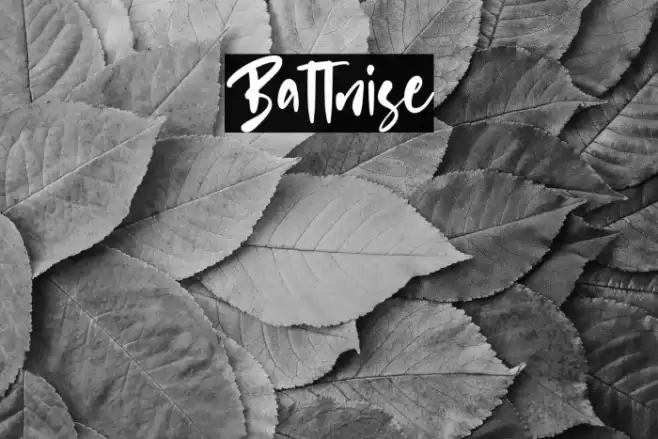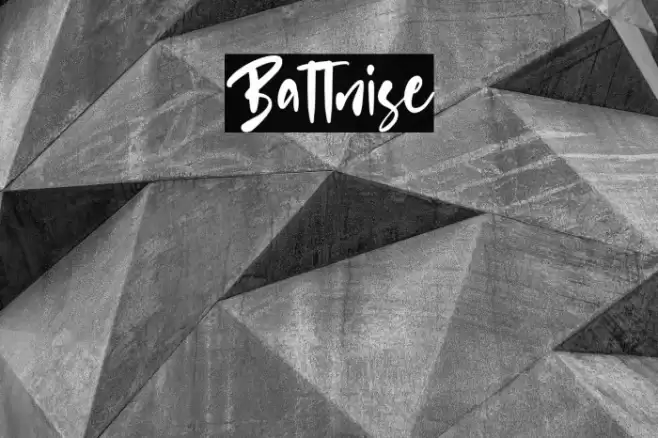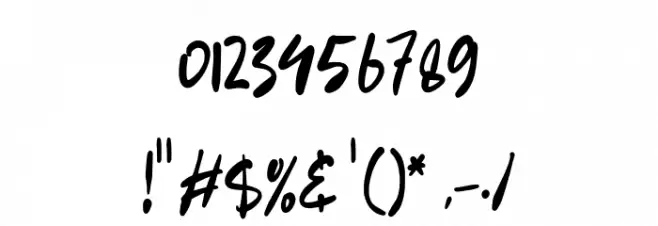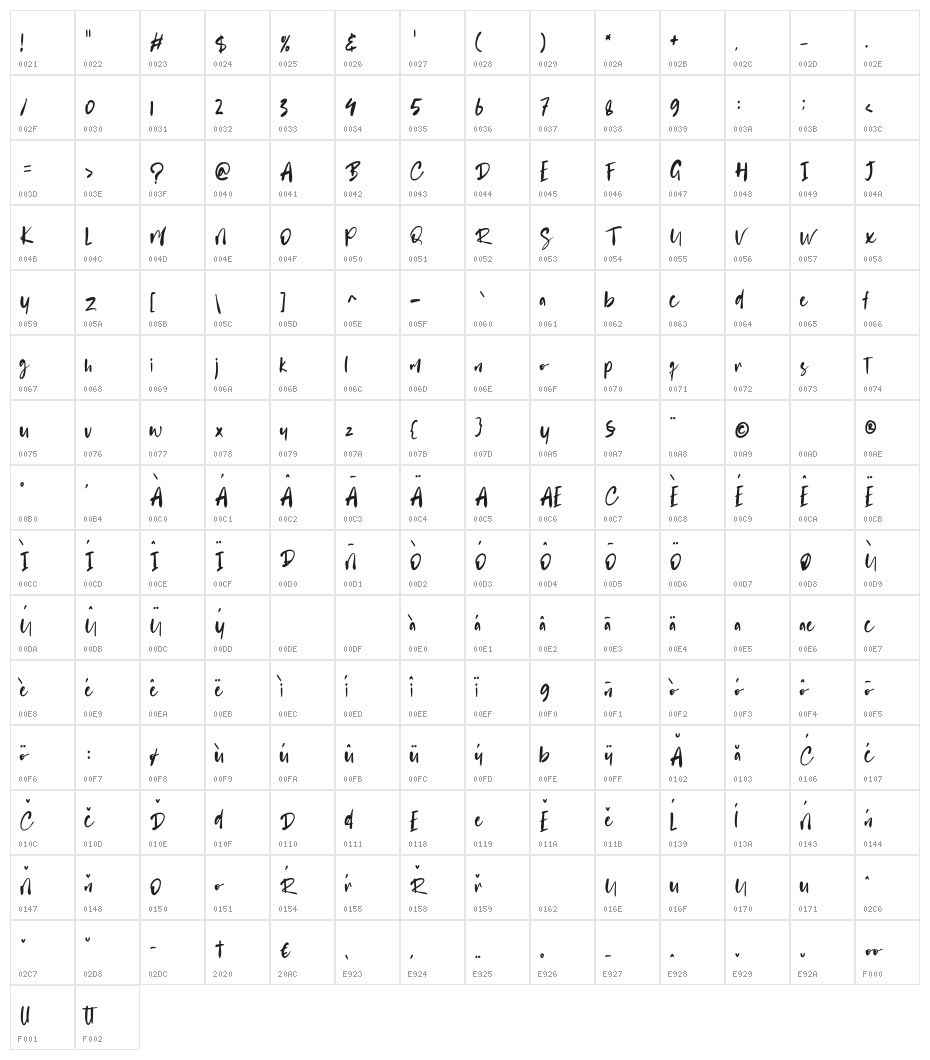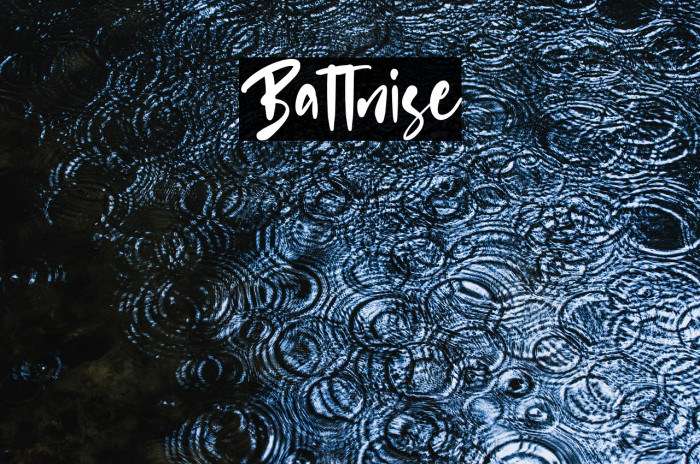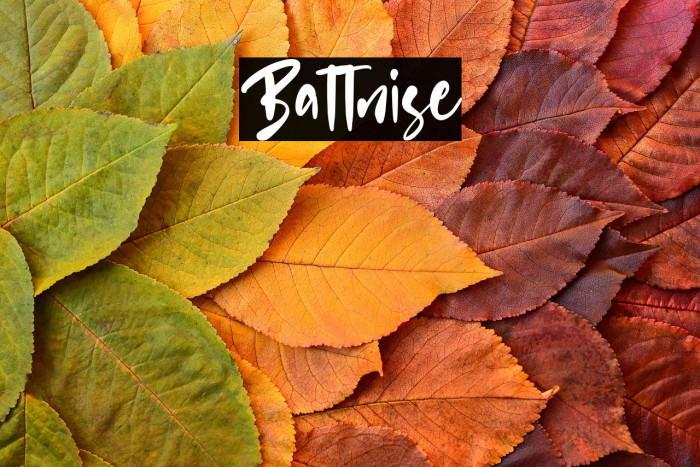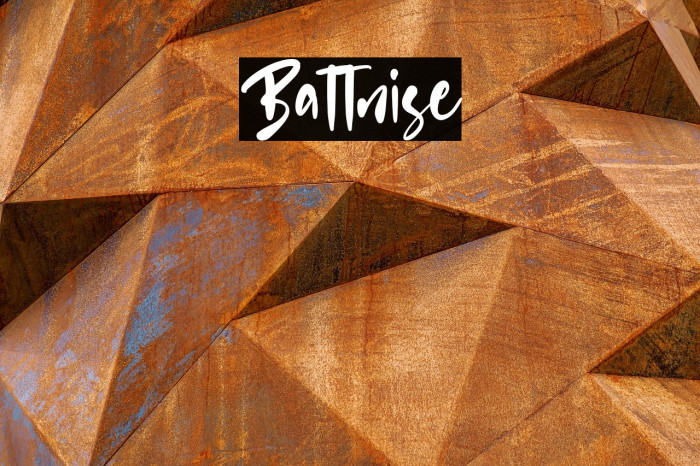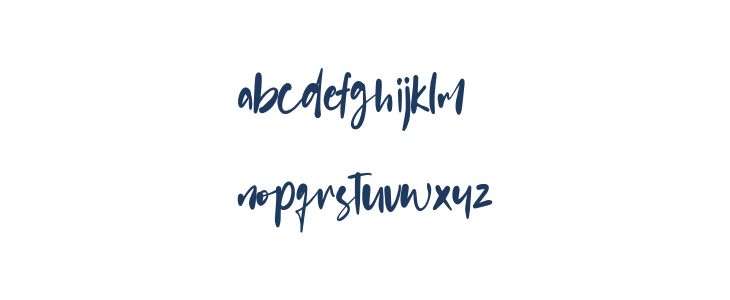
Battnise Font
Battnise Description
This font exudes a lively and energetic vibe, characterized by its bold, brush-like strokes that give it a handwritten appearance. The uppercase letters are dynamic and slightly irregular, adding a sense of movement and spontaneity. The lowercase letters maintain this fluidity, with some characters featuring unique loops and curves that enhance its artistic flair. The numbers are consistent with the overall style, providing a cohesive look. Special characters are well-integrated, maintaining the playful and informal aesthetic. This font is perfect for projects that require a personal touch or a creative, informal feel.
A bold, brush-style handwritten font with dynamic strokes and a lively appearance from Regular fonts.
- Proposed Projects: Ideal for greeting cards, invitations, posters, and branding that require a personal, artistic touch.